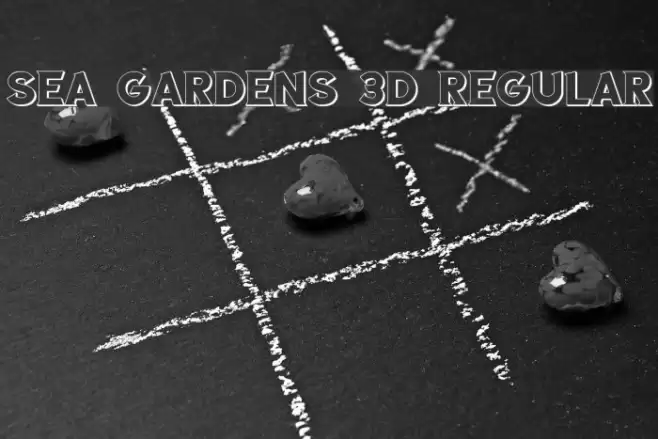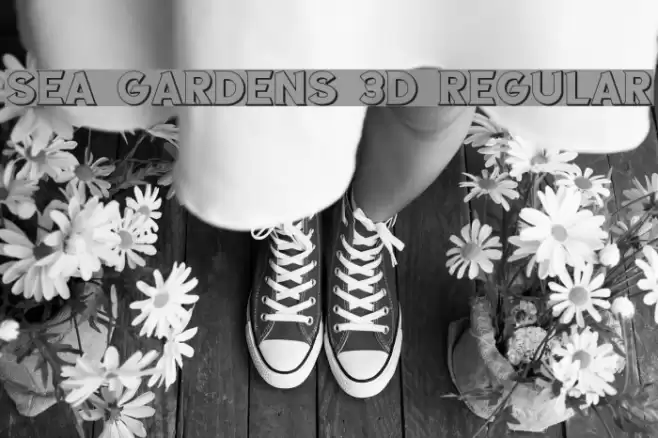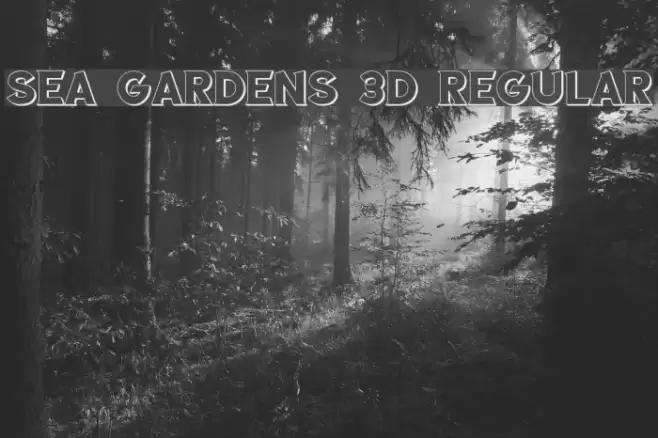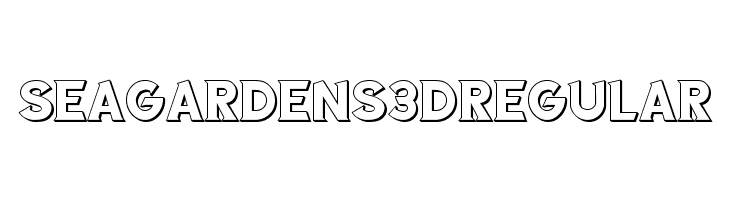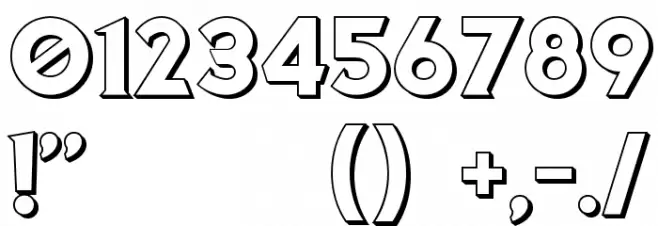
Sea Gardens 3D Regular Font
Sea Gardens 3D Regular Description
This font features a bold, three-dimensional style with a strong outline that gives each character a striking, shadowed appearance. The uppercase letters are prominently displayed with a geometric precision, while the numbers and special characters maintain the same bold and impactful design. The font's 3D effect is achieved through a clever use of shading and perspective, making it ideal for eye-catching designs. Its clean lines and structured form lend it a modern and dynamic feel, perfect for projects that require a bold statement.
A bold, 3D font with strong outlines and a modern, dynamic style from Uncategorized fonts.
- Proposed Projects: Ideal for posters, headlines, logos, and any design needing a bold, eye-catching font.